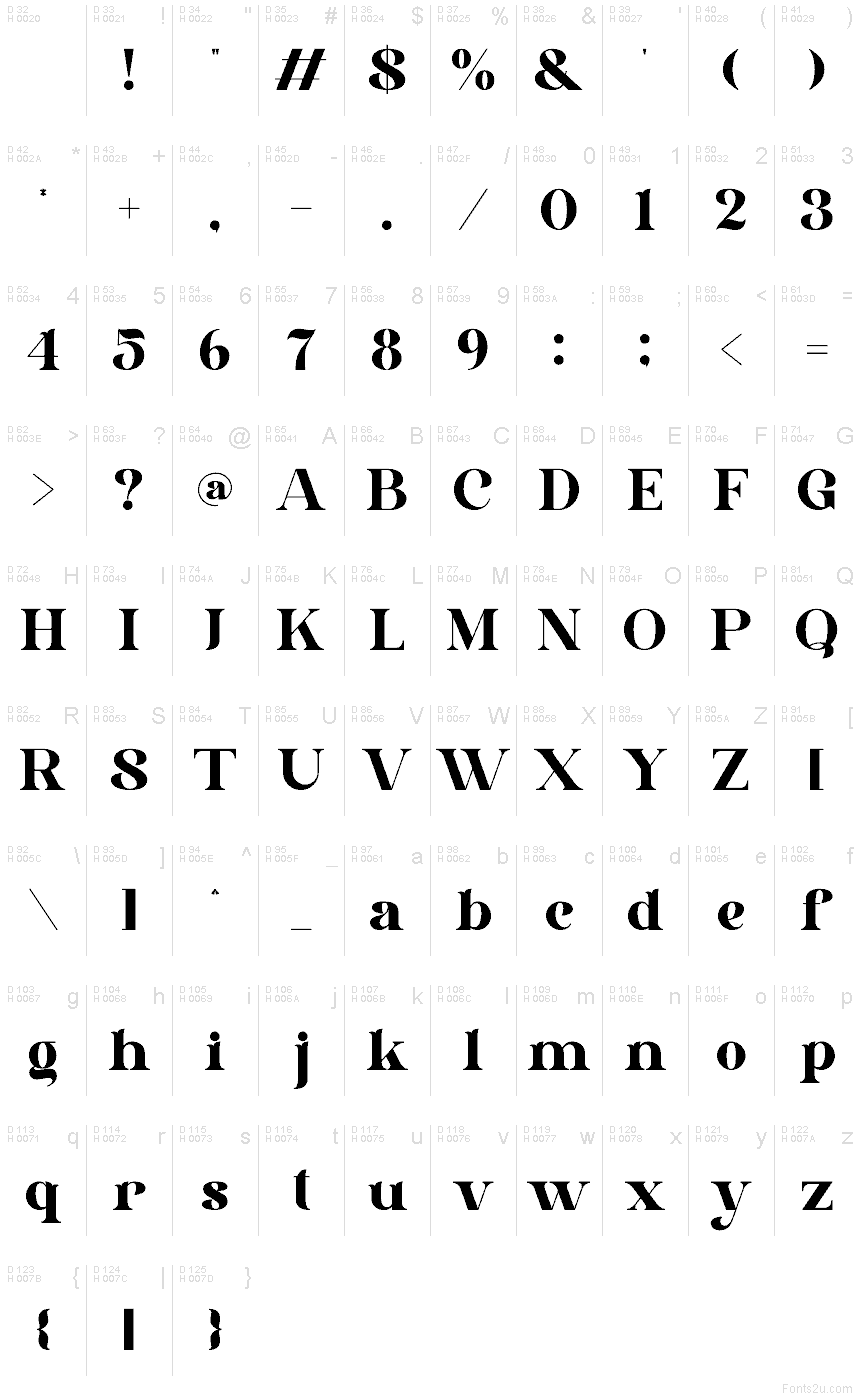
Ribery
Ribery font by Ermedia Studio is a free serif display font. It stands out with glossy, inky strokes that swell into bold verticals and snap back to razor-thin hairlines, plus sculpted ball terminals that feel chiseled rather than dainty. The rhythm is taut and elegant—tight spacing and confident curves give headlines a luxe, editorial snap without drifting into fussiness.
Using Ribery, titles gain instant presence for fashion branding, beauty packaging, magazine mastheads, luxury logos, wine labels, and event posters. This free font shines on large sizes where its contrast can breathe, and it works beautifully when paired with a clean grotesk sans for body copy—think generous line spacing and a touch of tracking to let those dramatic details gleam.